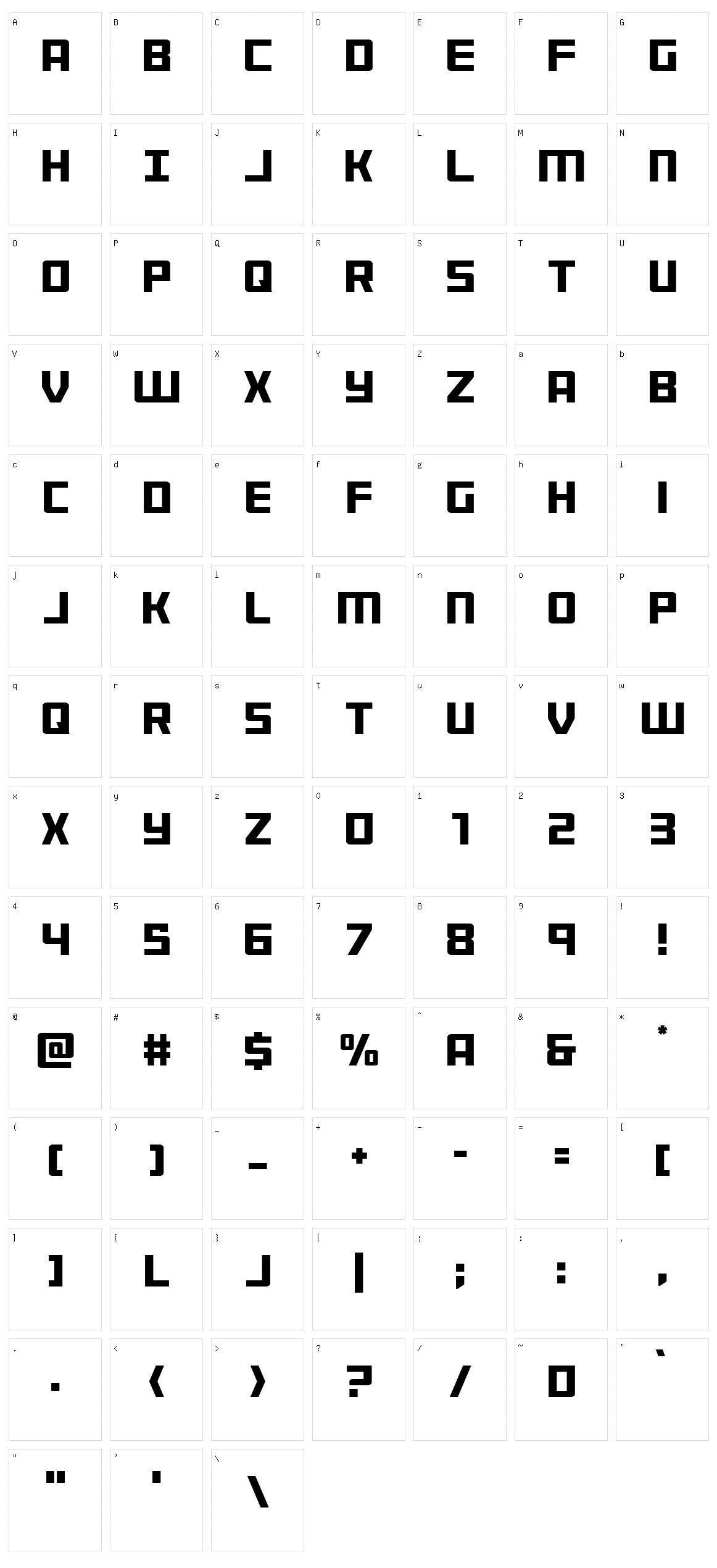
Brave Phoenix
Description: The free font Brave Phoenix is carefully designed by Iconian Fonts, showcasing a thoughtful balance of creativity and usability and belongs to the Techno font family. When you download the ZIP file, it contains only 476.35 KB of font files, making it lightweight and quick to download. Please review the license details below to understand permitted usage and distribution rights. If license information is not available, we recommend using this font for personal projects only or contacting the author directly for commercial usage permissions.
This font comes with the following 24 versions: Regular, Italic, Semi-Italic, Super-Italic, Ultra-Italic, Leftalic, Semi-Leftalic, Super-Leftalic, Compact, Compact Italic, Spaced, Spaced Italic, Condensed, Condensed Italic, Expanded, Expanded Italic, Wide, Wide Italic, 3D, 3D Italic, Gradient, Gradient Italic, Halftone, Halftone Italic.